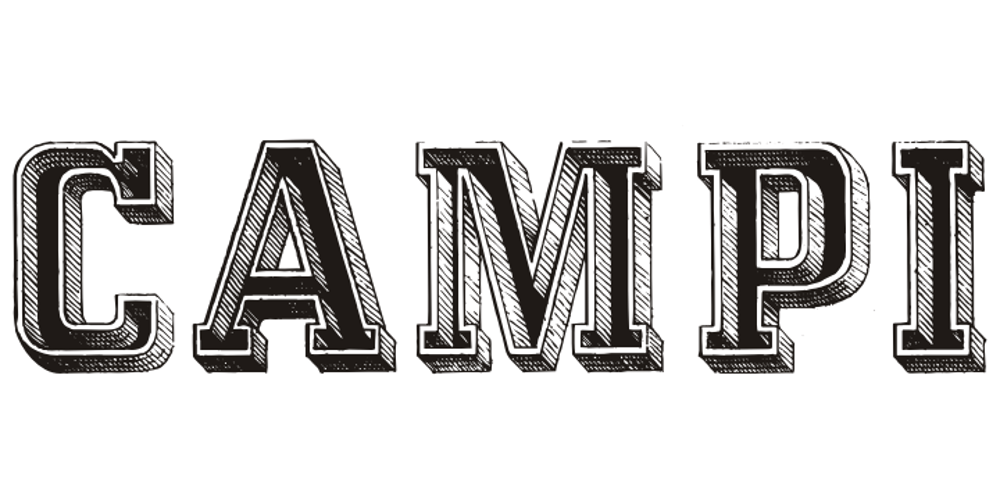
Campi Font Family was designed by Paulo W and published by Intellecta Design. Campi contains 1 styles and family package options. Campi, a great display font by Intellecta Design. Contains only capital letters.